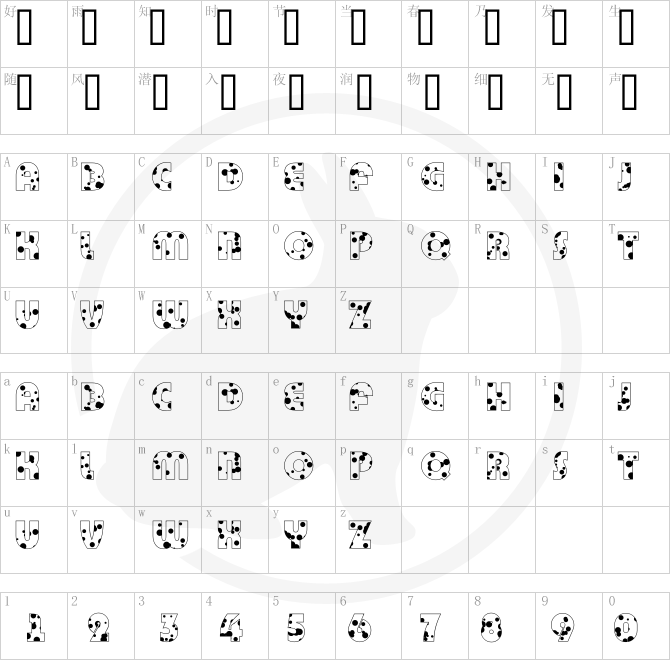
- Font Name:a_BighausTitulOtlDr
- Subfamily:a_BighausTitulOtlDr
- Full Name:a_BighausTitulOtlDr
- PostScript:ABighausTitulOtlDr
a_BighausTitulOtlDr.ttf is a very beautiful artistic font, a_BighausTitulOtlDr.ttf is widely used in the design and printing of various books and pictures,a_BighausTitulOtlDr.ttf has a strong visual impact,a_BighausTitulOtlDr.ttf is a commonly used font in newspapers, magazines and books, and is used in posters, e-commerce Poster design, store design, logo design, font design and other fields.a_BighausTitulOtlDr.